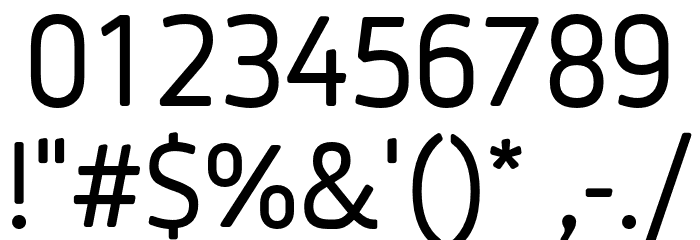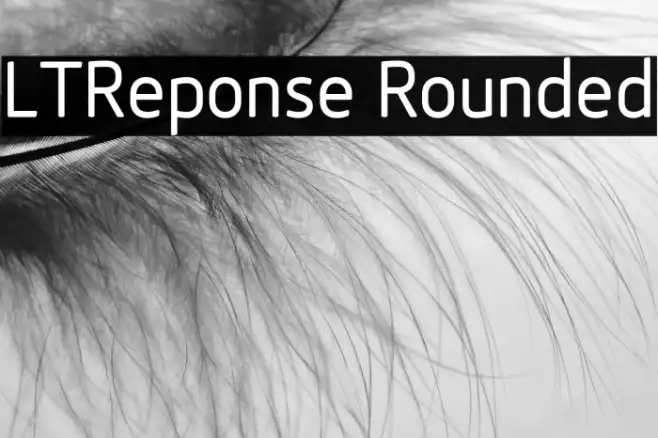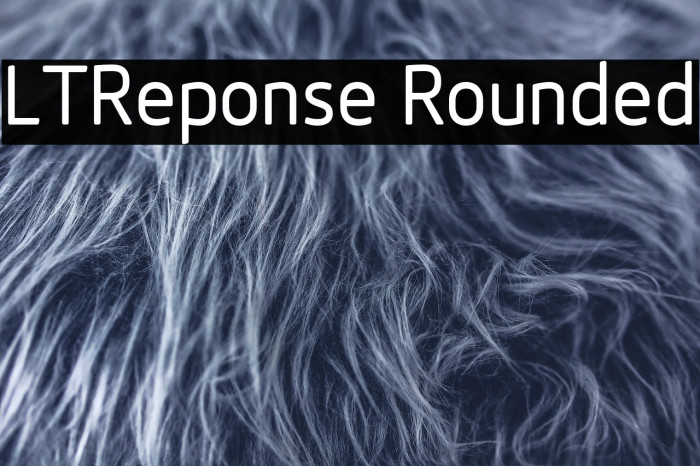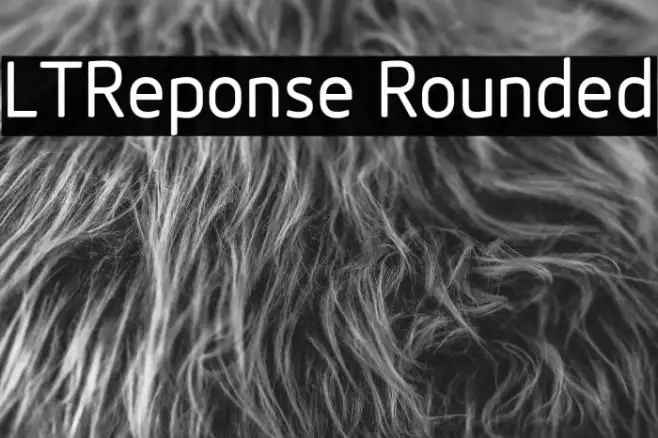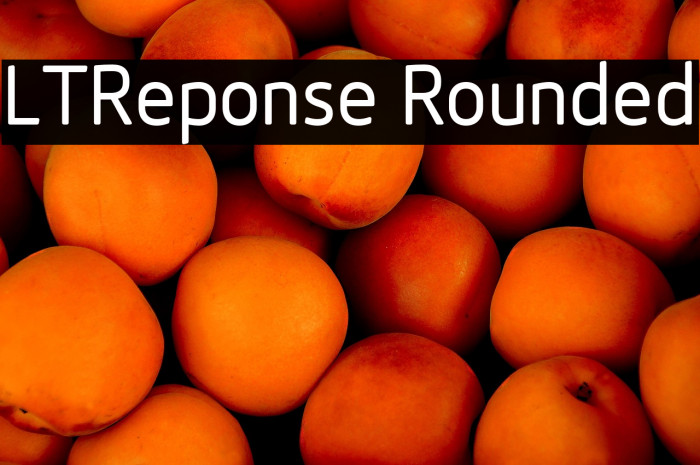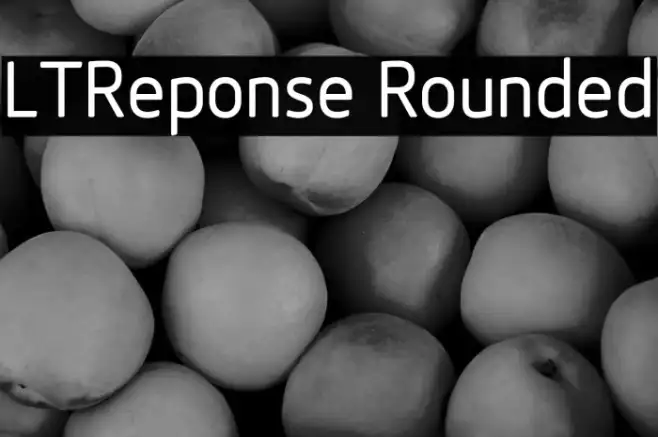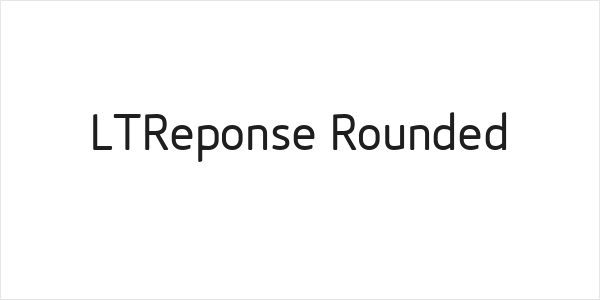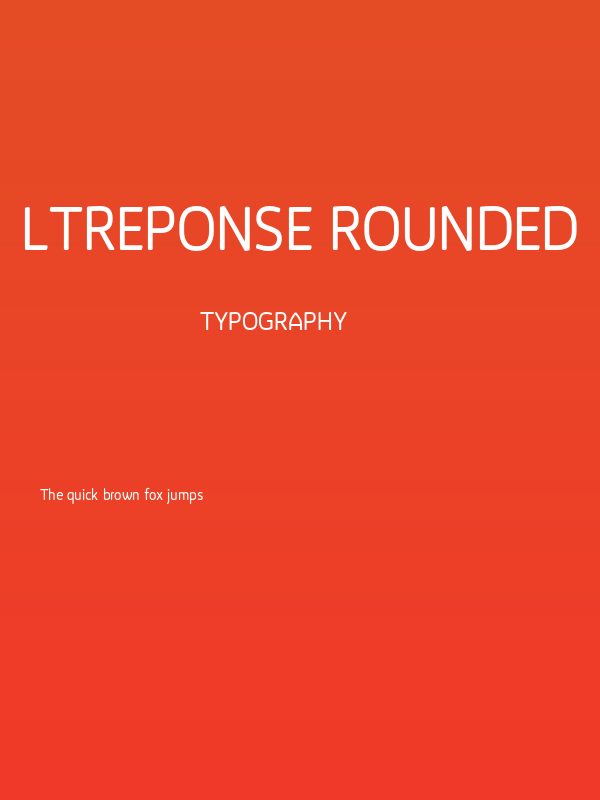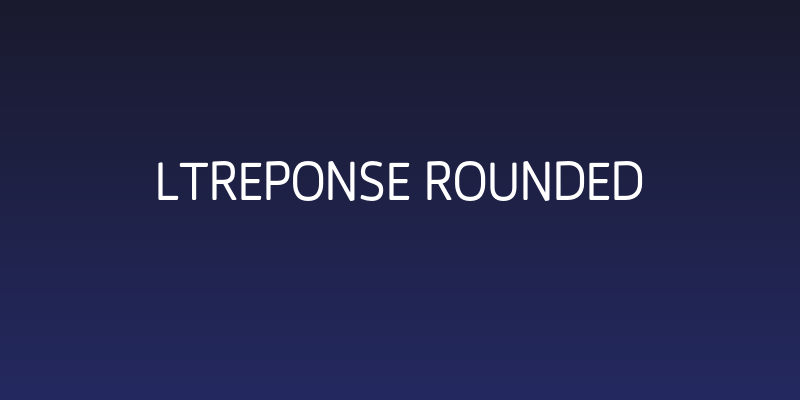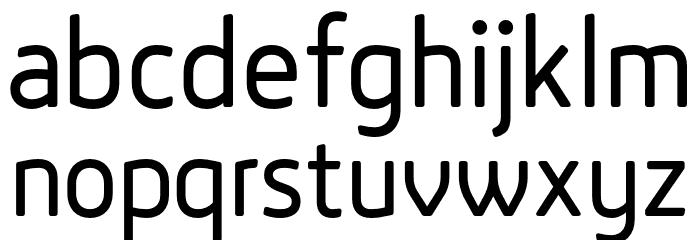
LTReponse Rounded Font
LTReponse Rounded Description
This typeface features a clean and modern aesthetic with rounded edges that soften its overall appearance. The characters are evenly spaced, contributing to a harmonious and readable text flow. The uppercase letters are bold and assertive, while the lowercase letters maintain a friendly and approachable demeanor. Numbers are clear and distinct, making them suitable for both digital and print applications. Special characters are well-integrated, ensuring versatility across various contexts. The font's simplicity and rounded forms make it ideal for contemporary design projects.
| Proposed Projects | Ideal for branding, web design, user interfaces, and advertising materials. |